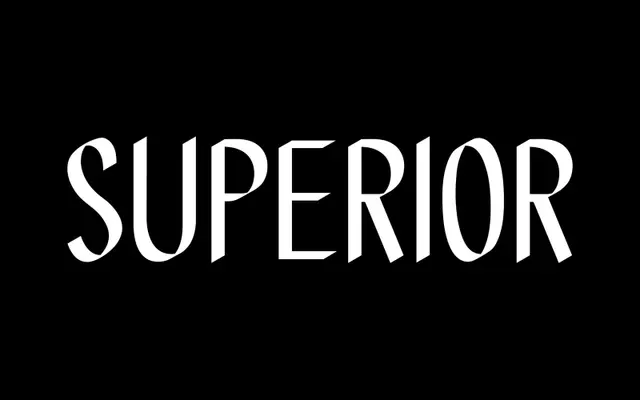
Selador specimen from The Designers Foundry
A single-weight calligraphic display face by Maximilian Huber, pitched at alternative and punk-adjacent graphic design work.
Drawn from early calligraphy letterforms but stripped back to a minimal aesthetic, Selador sits somewhere between expressive lettering and contemporary display type. It ships as a single Regular weight with a glyph count of 239 and broad Latin language coverage across African, European and Southeast Asian languages. Best suited to poster work, album art or editorial contexts where a raw, handmade energy is appropriate.
Selador is described as a calligraphic minimalist typeface drawing on early calligraphy letterforms, positioning it as a display face with expressive, alternative characteristics rather than a conventional text type.